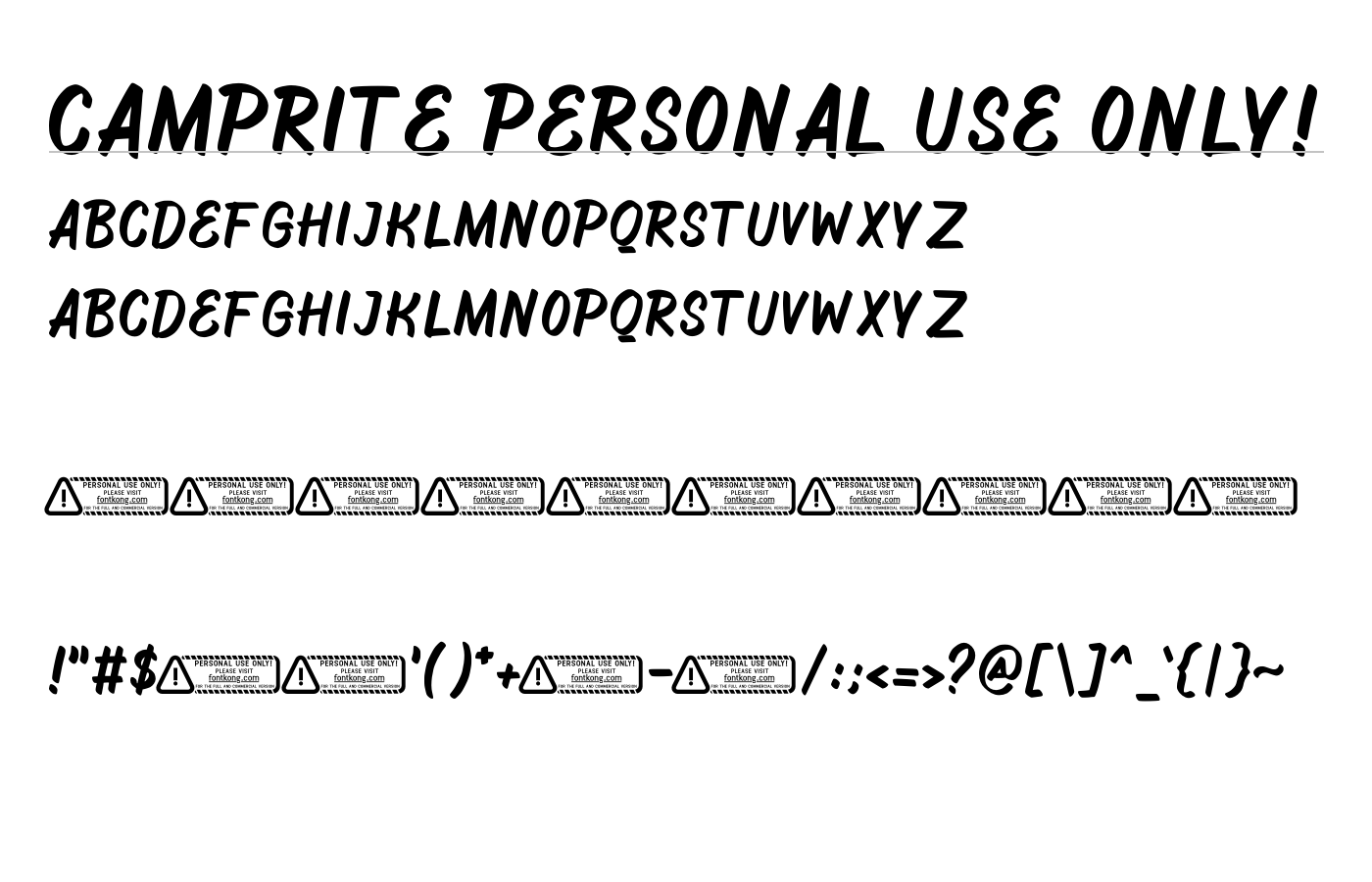
Camprite is a bold, playful script-style font with a casual, hand-drawn feel. Its slightly irregular strokes and lively letterforms convey energy and friendliness, making it ideal for informal designs like posters, branding for creative projects, or eye-catching headlines. The font’s strong personality shines best in settings that want to express fun and approachability.
Camprite PERSONAL USE ONLY! Font
About Camprite PERSONAL USE ONLY! Font